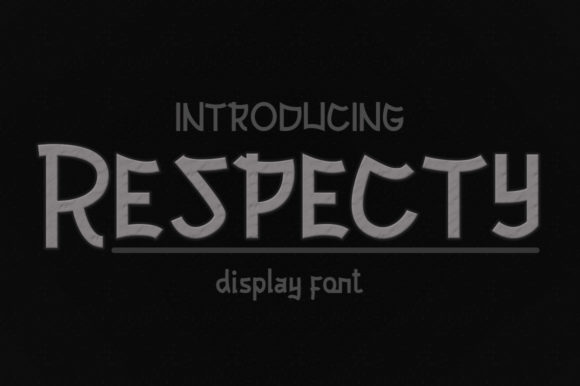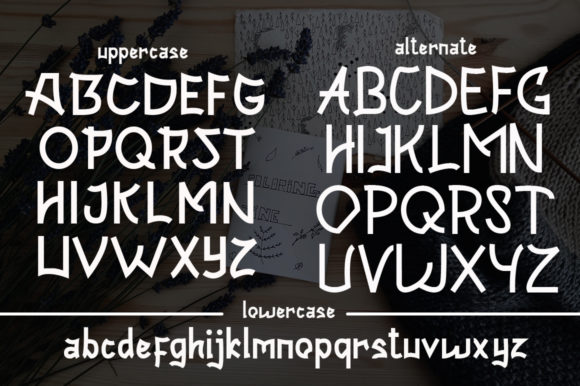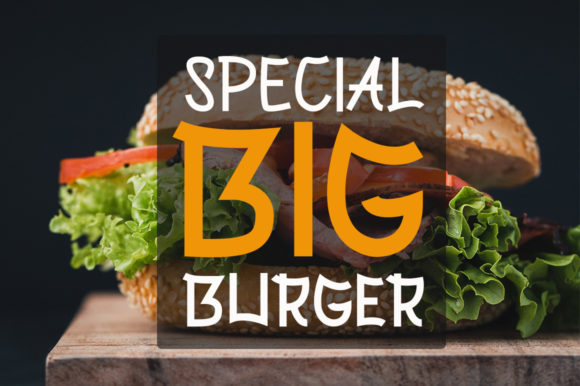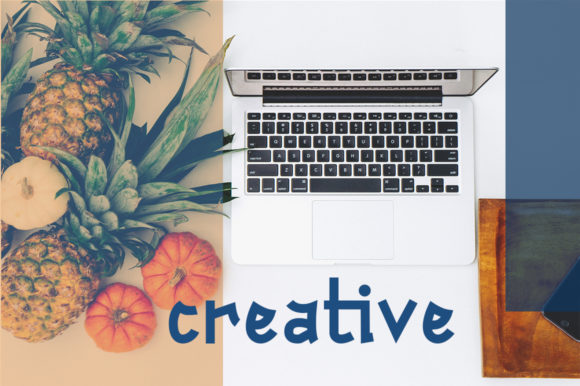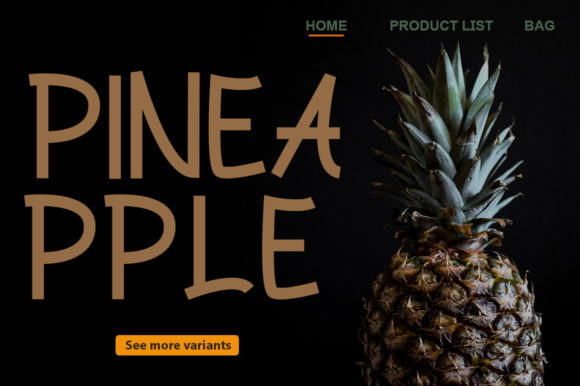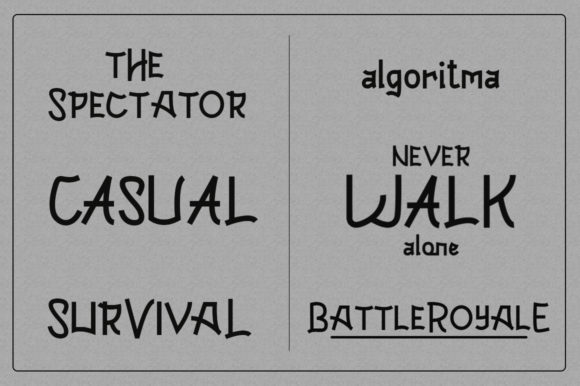
HomeScript FontsRespecty Font Script Fonts Respecty Font FacebookXPinterestWhatsApp Respecty Font Poster 2 Respecty Font Poster 3 Respecty Font Poster 4 Respecty Font Poster 5 Respecty Font Poster 6 About Respecty Font Respecty is a fun and playful handwritten font with a casual vibe. Fall in love with its unique style! DOWNLOAD ON CREATIVE FABRICAThis font is sold and delivered by Creative Fabrica. Font Canyon may earn a commission if you buy through this link. People also explored Fingerprint Font Frankenfriend Font Skaterain Font Boho Style Font Hella Font Little Heart Font Heaven Font Vitamin Font Easter Cute Font 390 0 TagsRespecty Font Previous articleMakayla FontNext articleMy Homely Font LEAVE A REPLY Cancel reply Comment: Please enter your comment! Name:* Please enter your name here Email:* You have entered an incorrect email address! Please enter your email address here Website: Save my name, email, and website in this browser for the next time I comment. Personal Use Free Harshita Personal Use Free Read more about this font Tahu Font Personal Use Free Read more about this font Makcex Personal Use Free Read more about this font Cinderella Personal Use Free Read more about this font BLOG How to Cut Any Font on Cricut: Convert a Font to SVG (Free) Turn any font into a clean SVG so it cuts crisp on Cricut - a quick 3-step workflow using a free font-to-SVG tool. How to Install and Use Fonts on Windows, macOS, and Web Projects Fonts That Capture the Spirit of New York City 5 Fonts That Will Dominate Design Trends in 2026